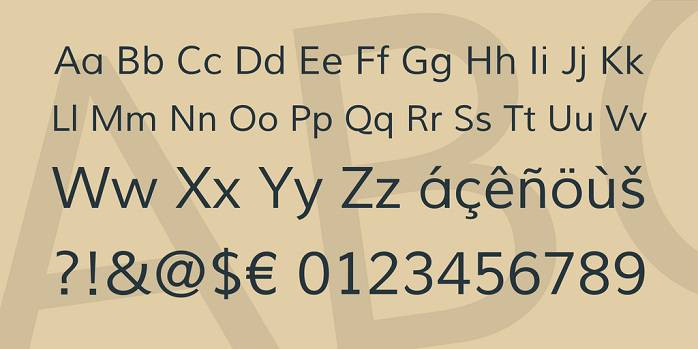
Muli font minimalist bir sans serif. The muli font has been downloaded 27,781 times. About the font muli regular.
The font contains huge stylistics sets like regular, bold, italic, and medium which is perfect for designing any project. Download the muli font by vernon adams. The font family is muli.
Muli, masaüstü bilgisayarlar, dizüstü bilgisayarlar ve mobil cihazlardaki web tarayıcıları tarafından internette özgürce. Please, talk with the author for commercial use or for any support. Muli çoğunlukla bir ekran yazı tipi olarak kullanılmak üzere tasarlanmıştır, ancak bir metin yazı tipi olarak da kullanılabilir.
Muli is designed mainly for use as a display font but is useable as a text font too. Muli italic | 500 glyphs. 57 professional muli regular fonts to download.
Muli is designed mainly for use as a display font but is useable as a text font too. Explore muli designed by vernon adams at adobe fonts. Download muli font family · free for commercial use · muli is a minimalist sans serif.
The latest addition fonts more. Muli has been designed to be use. Muli is designed mainly for use as a display font but is useable as a text font too.